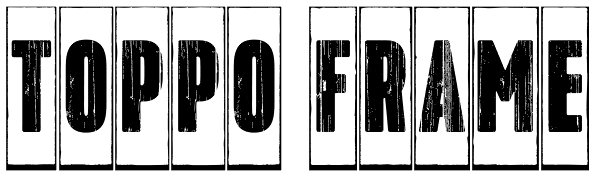
Toppo
To design the font Toppo I was inspired by a You And Me Monthly published by National Magazines Publisher RSW Prasa that appeared from Mai 1960 till December 1973 in Poland. This family contains 6 different styles. In the Toppo family, every variety...
Toppo Regular
Toppo Frame
Toppo Stencil
Toppo Stencil Frame
Toppo Stencil Negative
Toppo Negative